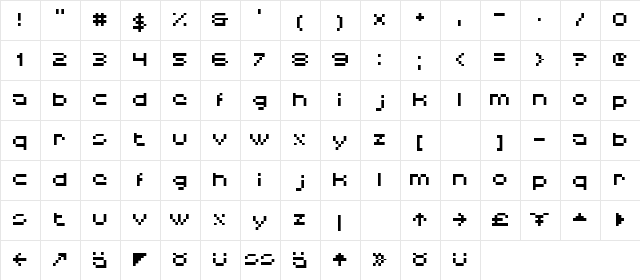
HISKYFLIPPERLOW Regular
Design Context for HISKYFLIPPERLOW Typeface
HISKYFLIPPERLOW is a composed and adaptable typeface that performs quietly and consistently across a wide range of design contexts.
Pro Tip: Use HISKYFLIPPERLOW in both headline and body roles to test its range before committing to a single application.